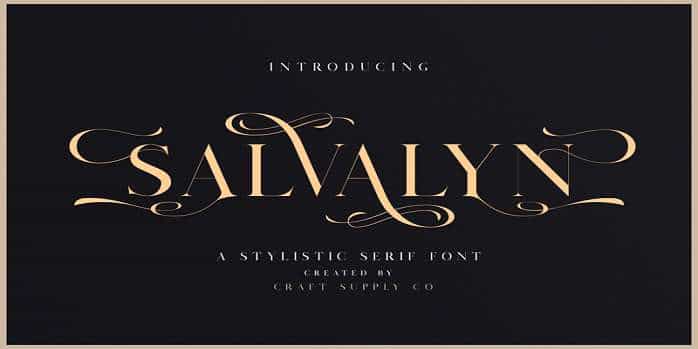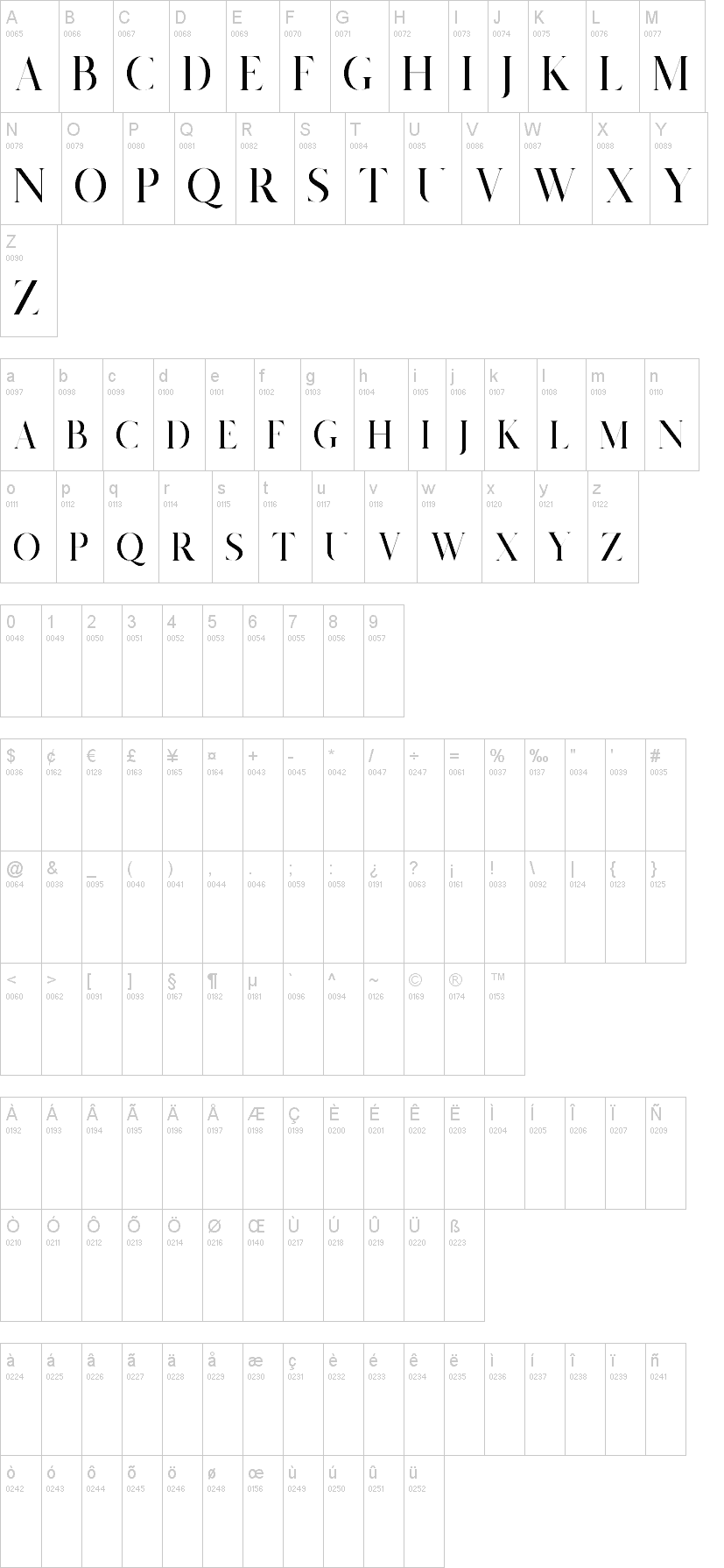
Salvalyn – Stylistic Serif Font is a stylish serif font that may contain a lot of opportunities, especially for a lot of various. Salvalyn – Stylistic Serif Font is a useful tool for creating beautiful and simple ornamental letters for using on book covers or on posters and packages.